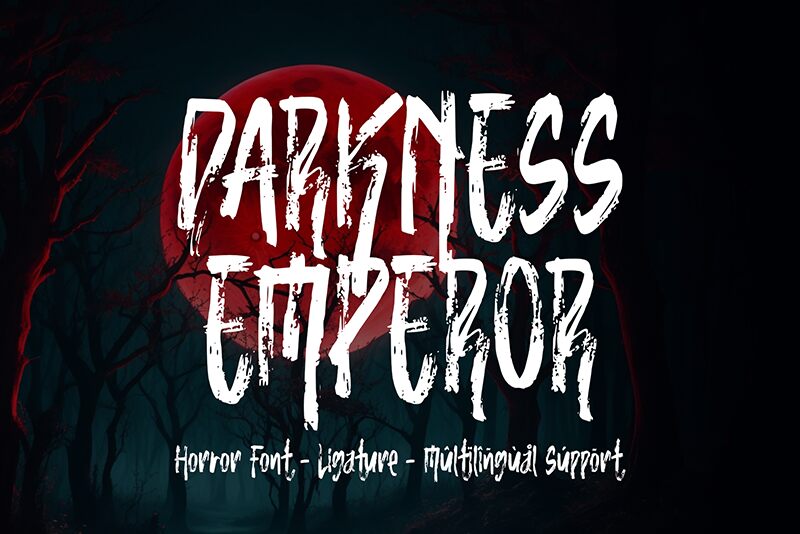
Darkness Emperor
Darkness Emperor font by Horror Font is a scary display font with textured, grungy letters. It carries the spirit of horror movies, with condensed width figures that look sinister and expressive. This distressed resource already has everything ready to make any artwork intimidating, starting from its rough brush strokes up to its uneven shapes.
Posters for horror movies, video game design, web banners, typography logos for rock bands, apparel tags: this free display font can handle it all. Other uses can include brewing company labels (dominated by black colors), Halloween movie invitations or posters of upcoming shows, and similar.